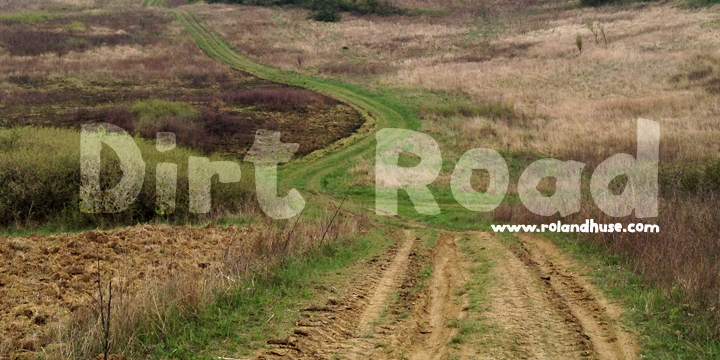
Preview and download Dirt Road Font. Created by Runes & Fonts in Fancy Eroded styles with Free for personal use license.
DIRT ROAD is a hand drawn rustic font. Free for personal use only. For commercial use please donate or contact me via myhandwritings@gmail.com Also if you have requests, any questions or feedback. You MAY NOT sell this font or claim them as your own. You MAY NOT edit or rename this font. You MAY NOT redistribute this font. Thank you & I hope you like this font, Roland http://www.rolandhuse.com https://www.facebook.com/pages/Runes-And-Fonts/123221817784772 |